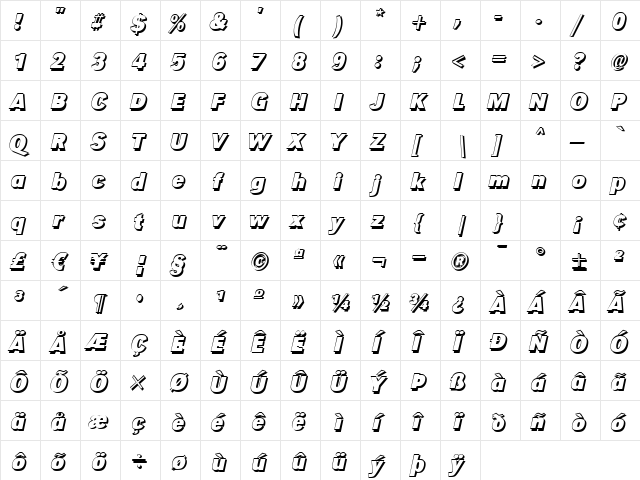
TomBeckerShadowN BoldItalic Font Preview
Design Context for TomBeckerShadowN Typeface
TomBeckerShadowN is built around its visual character rather than neutral utility — its distinctive forms are designed to make an impression at display sizes. Its italic angle brings a sense of urgency and motion to the letterforms. The heavy weight commands attention and anchors typographic hierarchies.
Font Pairing: Pair with a clean neutral sans-serif for body copy to let TomBeckerShadowN's character lead without overwhelming the composition.
Pro Tip: Treat TomBeckerShadowN as the centrepiece of your typographic hierarchy. One strong heading set in a decorative face can carry an entire layout.